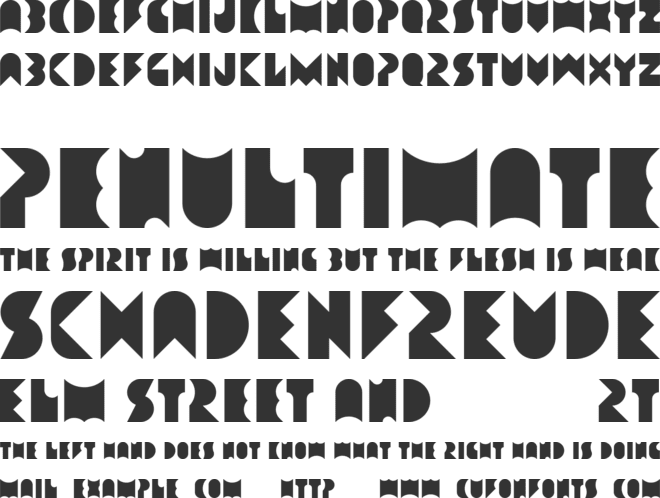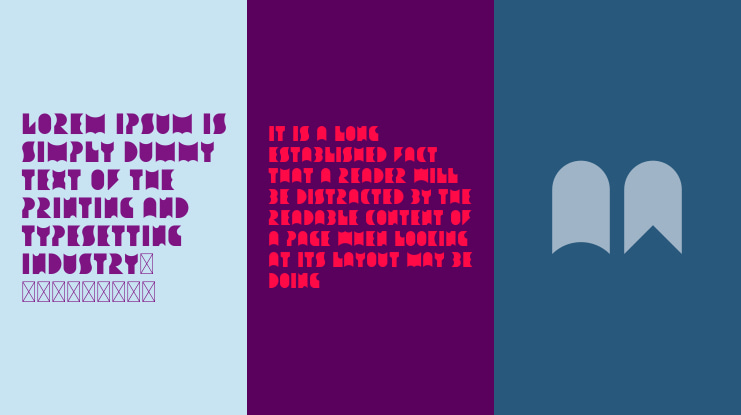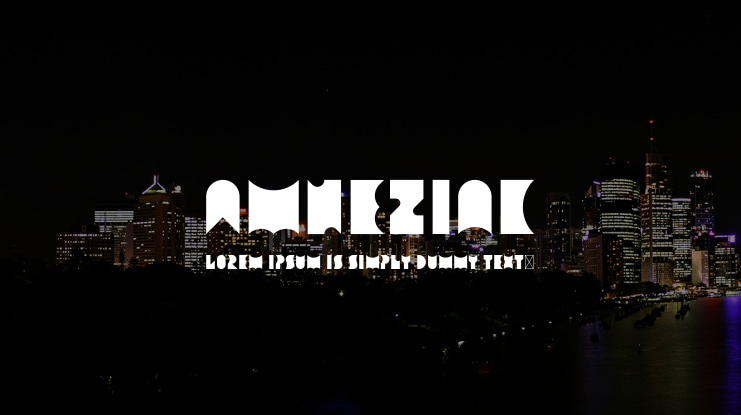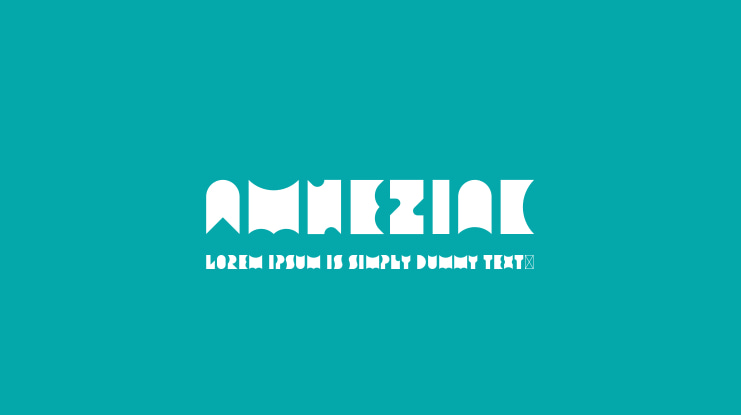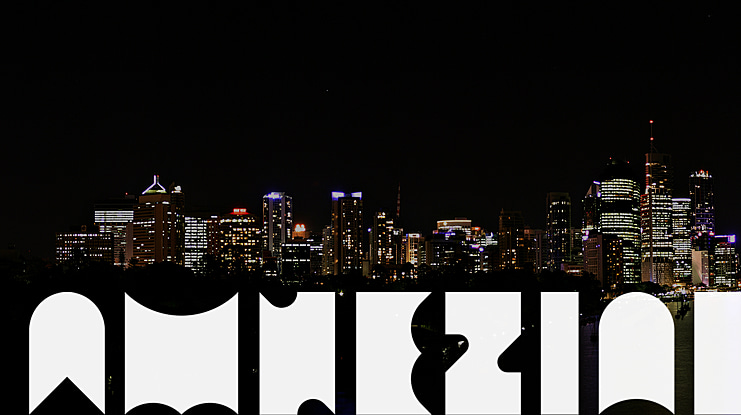
Amneziak Font Family
Amneziak is a new multi-style display typeface that I have recently developed. Took me less than a lunch break to develop the first style the Regular uppercase letters therefore I wanted to share it with you, as a freebie. After developing that first style, I worked a bit more on it and managed to make it in 5 weights (one full bodied style and four lined) and it two styles (activated by writing with uppercase or lowercase letters).